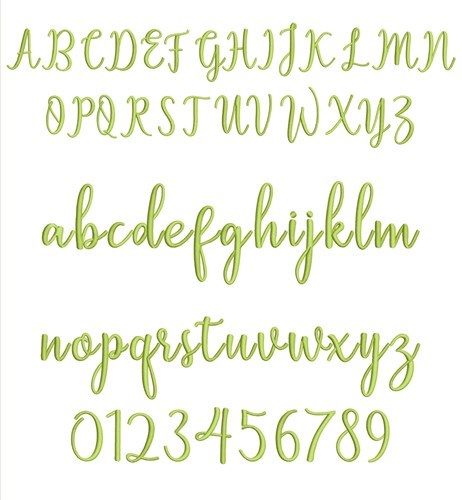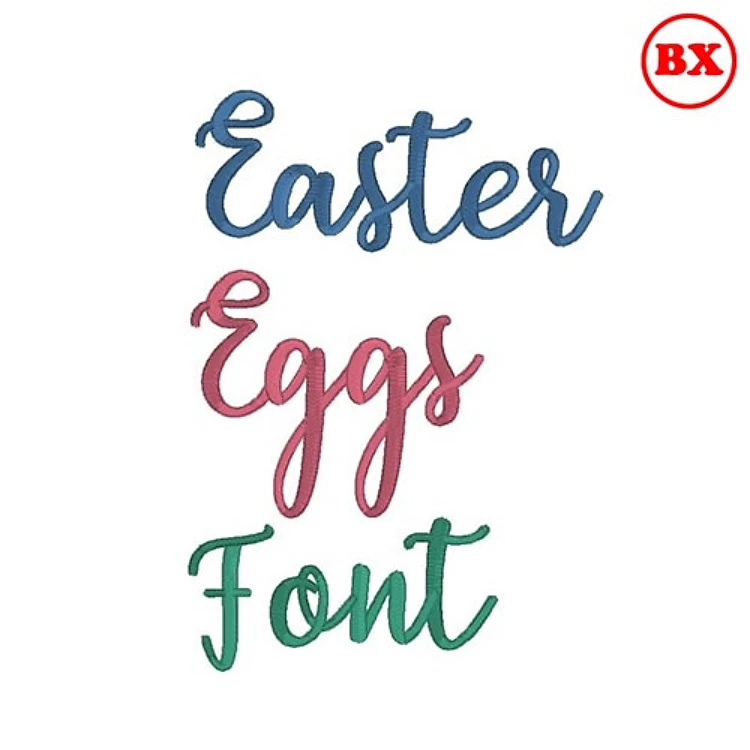
Easy Embroidery is happy to present Easter Eggs Embrilliance Font - Playful Script Style - BX font machine embroidery font which has Playful script machine embroidery font suitable for holiday-themed projects on cushions and apparel. Its festive flow and colors in blue, pink, and green create a cheerful look. Available in BX font and Embrilliance format. included. If you would like to view more embroidery fonts and alphabets please search our embroidery fonts page.
Easter Eggs Embrilliance Font - Playful Script Style - BX font